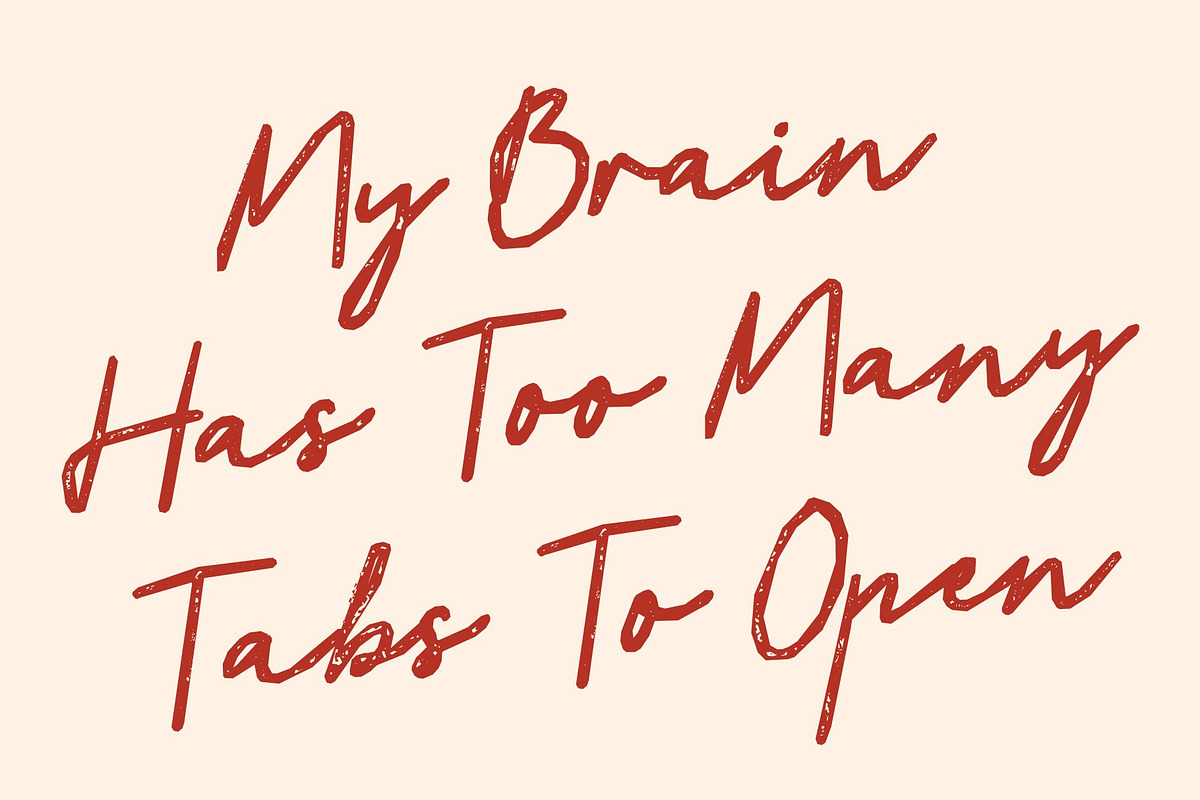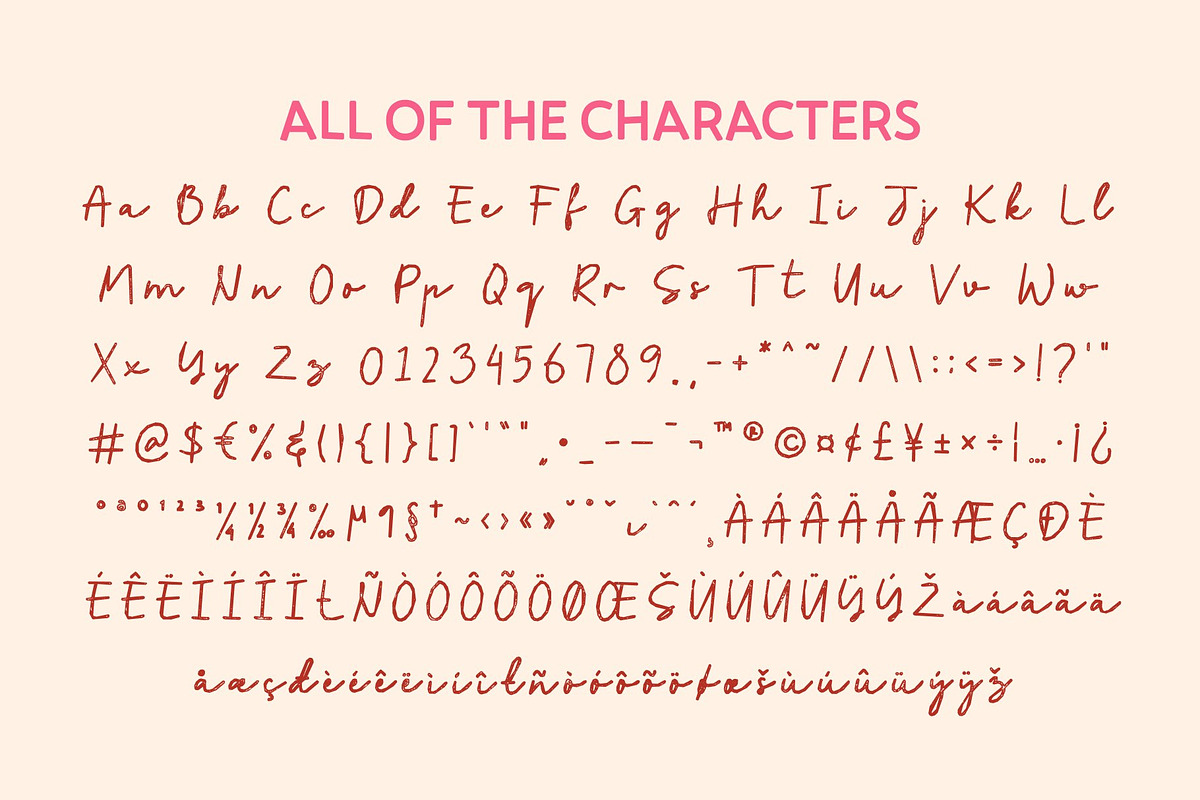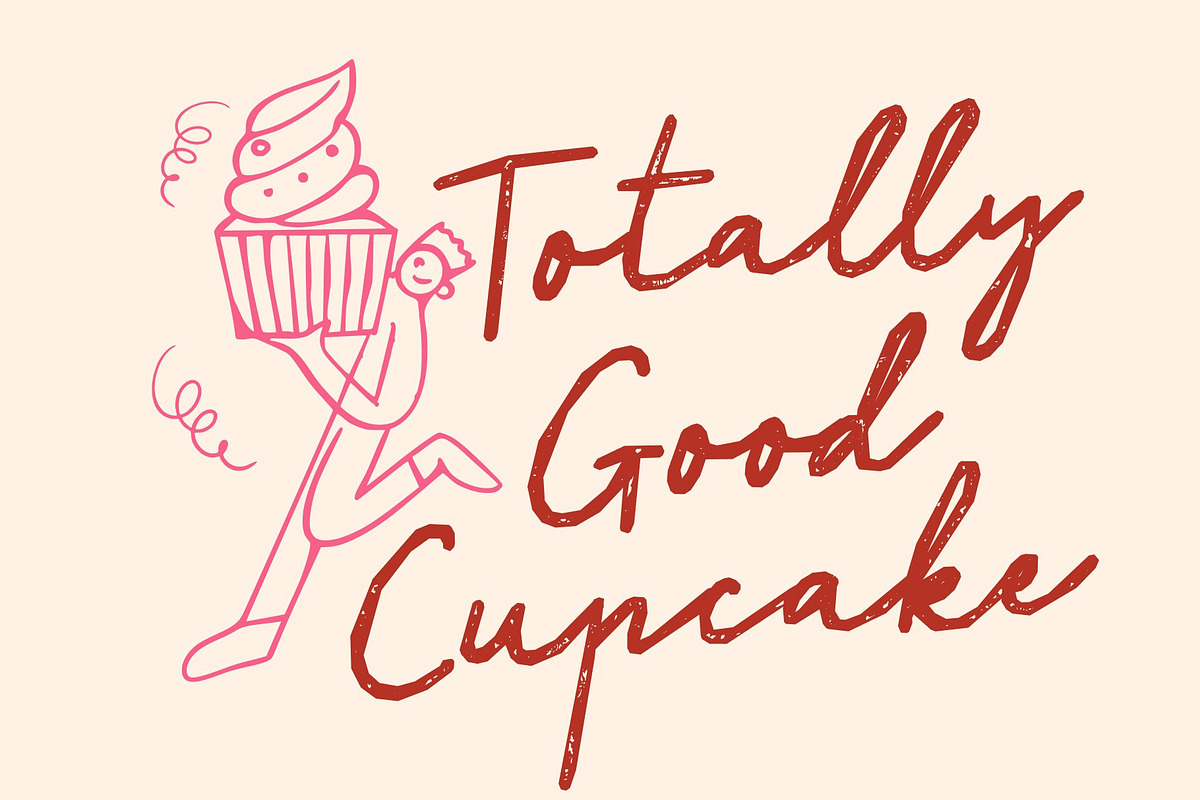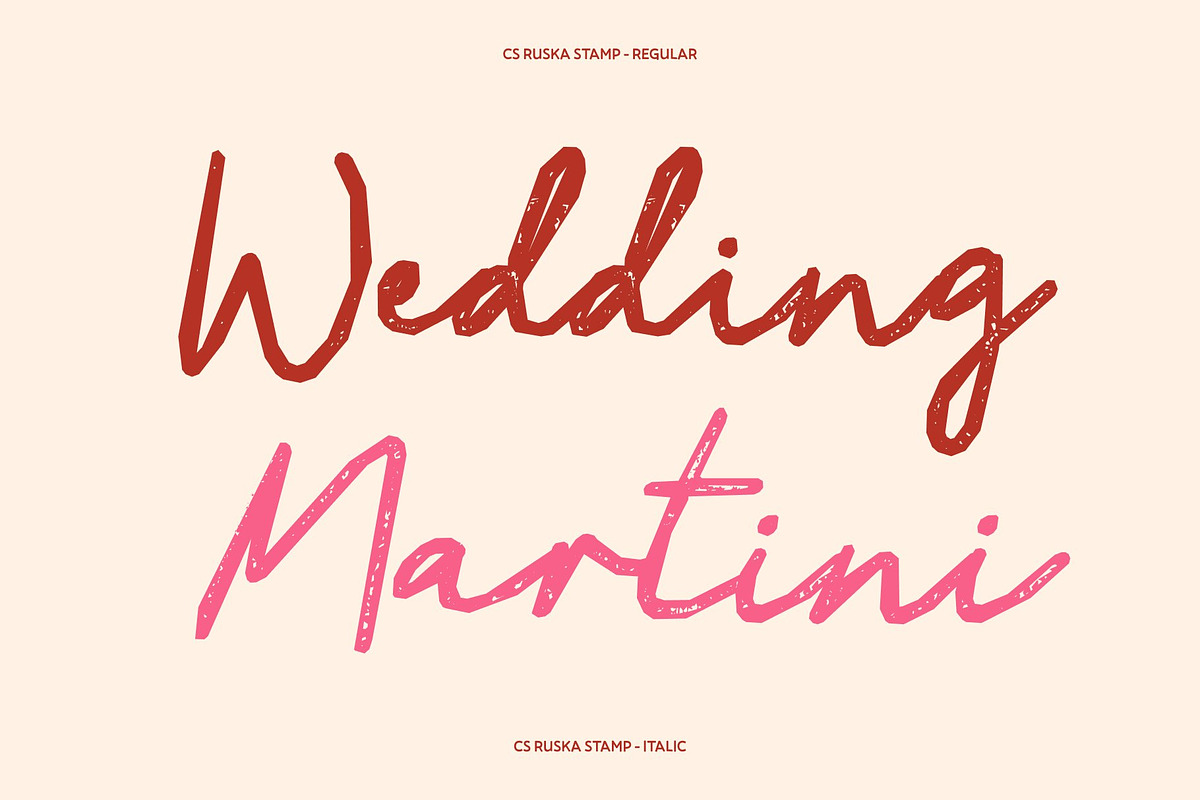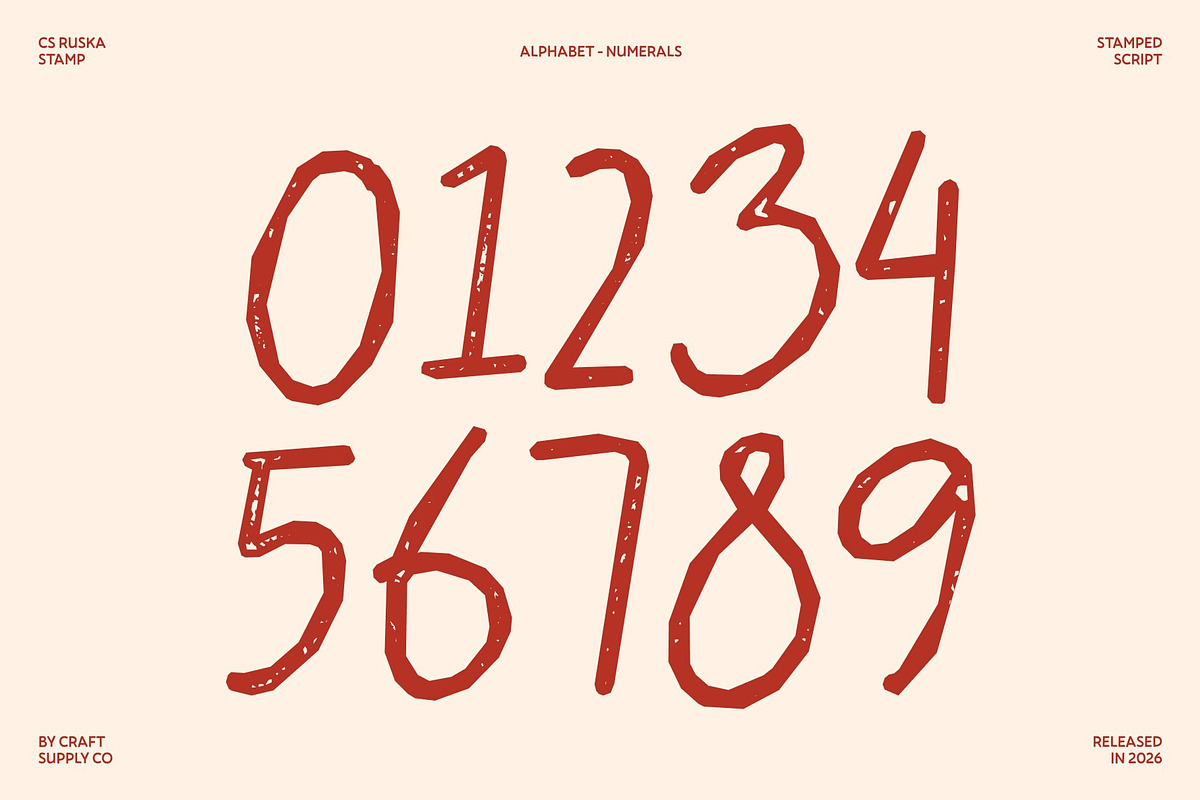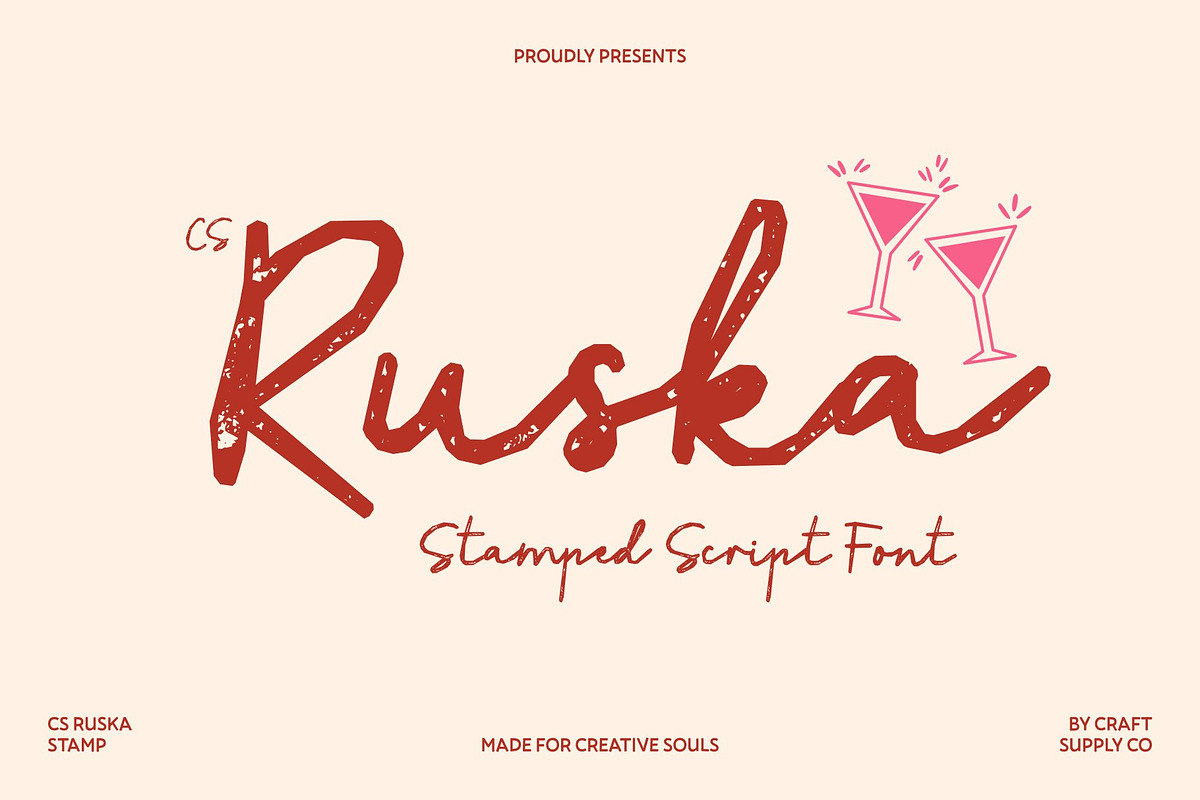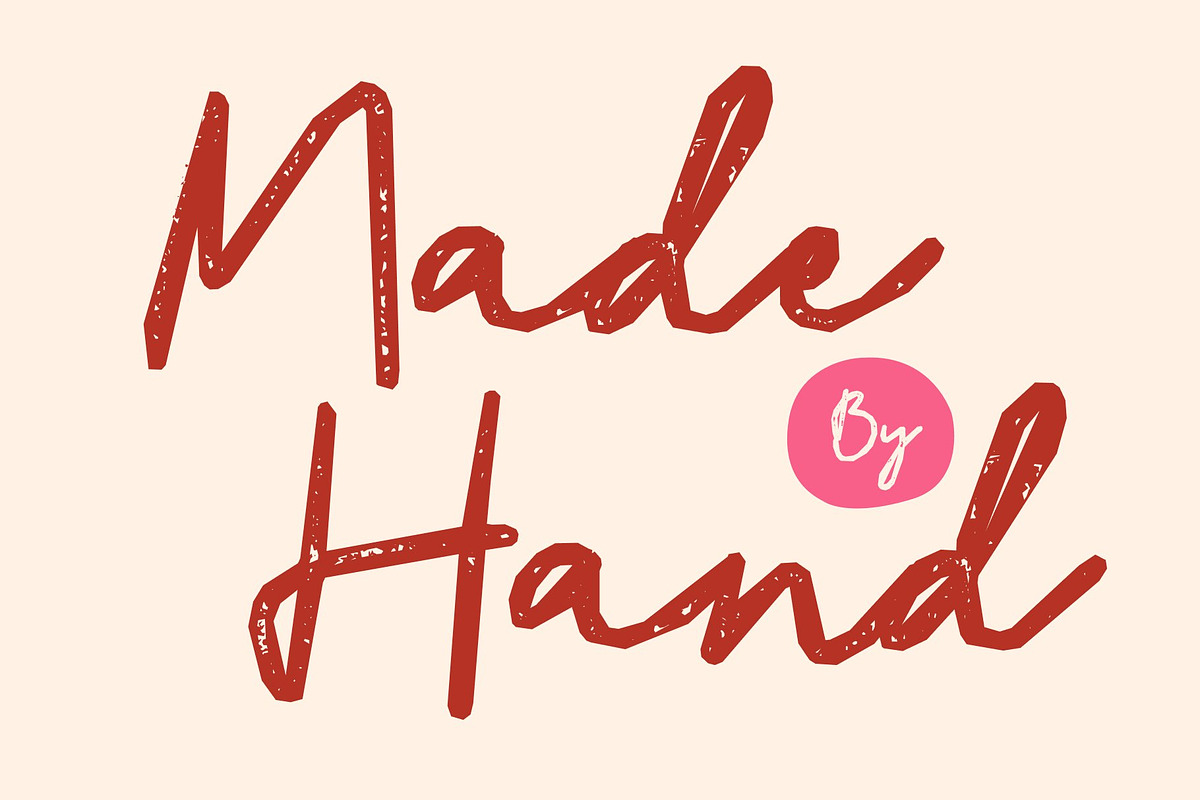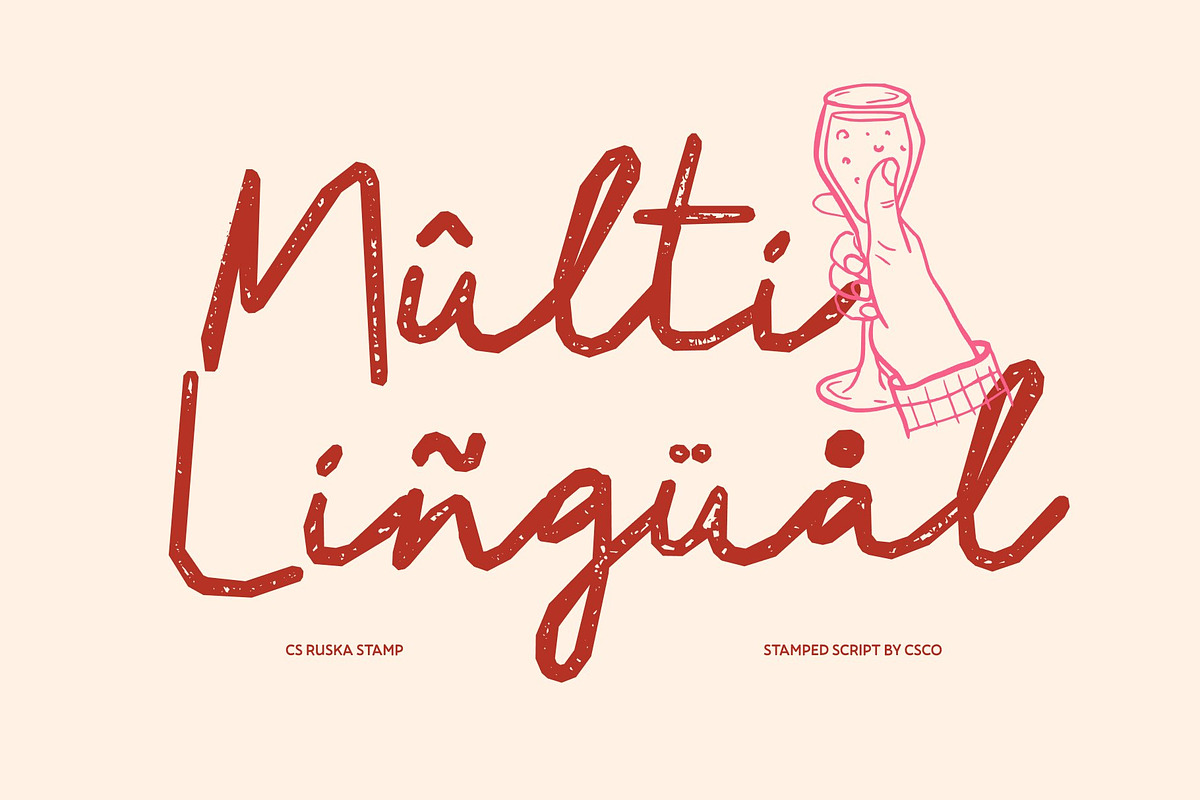
CS Ruska Stamp
Capture the essence of Mediterranean beauty and sophistication with CS Ruska Stamp, a romantic and stylish script font that flows gracefully. Its smooth, fluid strokes reflect the warmth and charm of authentic Italian handwriting, bringing an air of timeless refinement to every design. Inspired by classic Italian aesthetics, this typeface embodies confidence, romance, and distinct artistic flair.
The integrated stamp effect gives this font uniquely vintage characters, an authentic artistic texture, and a charming old design. This distressed surface provides every glyph with a tactile visual depth, mimicking traditional printing methods to ensure your creative work carries a soulful, human touch whether printed on physical paper or viewed across digital screens.
The graceful flow and handmade aesthetic add undeniable charm to prominent headlines and titles, making it an exceptional choice for any layout aiming to evoke sophistication and emotional resonance. Its expressive letterforms lend themselves naturally to boutique branding, romantic book covers, artisanal product packaging, elegant menus, and creative event stationery.
Bring a nostalgic yet refined spirit to your next project by letting these textured glyphs guide your visual narrative. Whether you are building an independent lifestyle brand or designing memorable event graphics, CS Ruska Stamp delivers an effortless blend of historic charm and Mediterranean wonder that leaves a lasting impression on every single application.
CS Ruska Stamp Regular
CS Ruska Stamp Italic